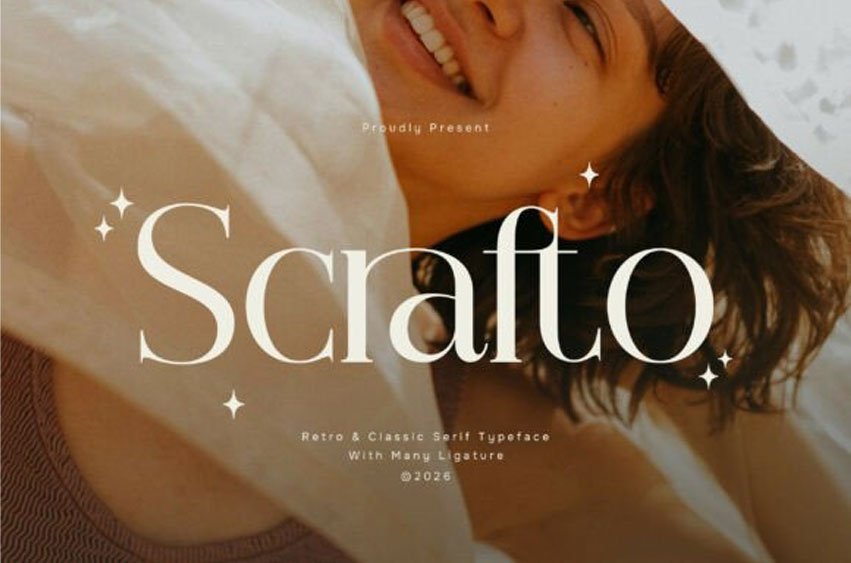
Scrafto Font
Scrafto Font is a classic and retro serif typeface that brings timeless elegance and vintage character into one refined design.
Inspired by traditional serif typography, Scrafto features strong serifs, balanced proportions, and distinctive details that create a sophisticated yet nostalgic look. With its classic foundation and retro personality, Scrafto delivers a warm and stylish visual presence that feels both familiar and unique.